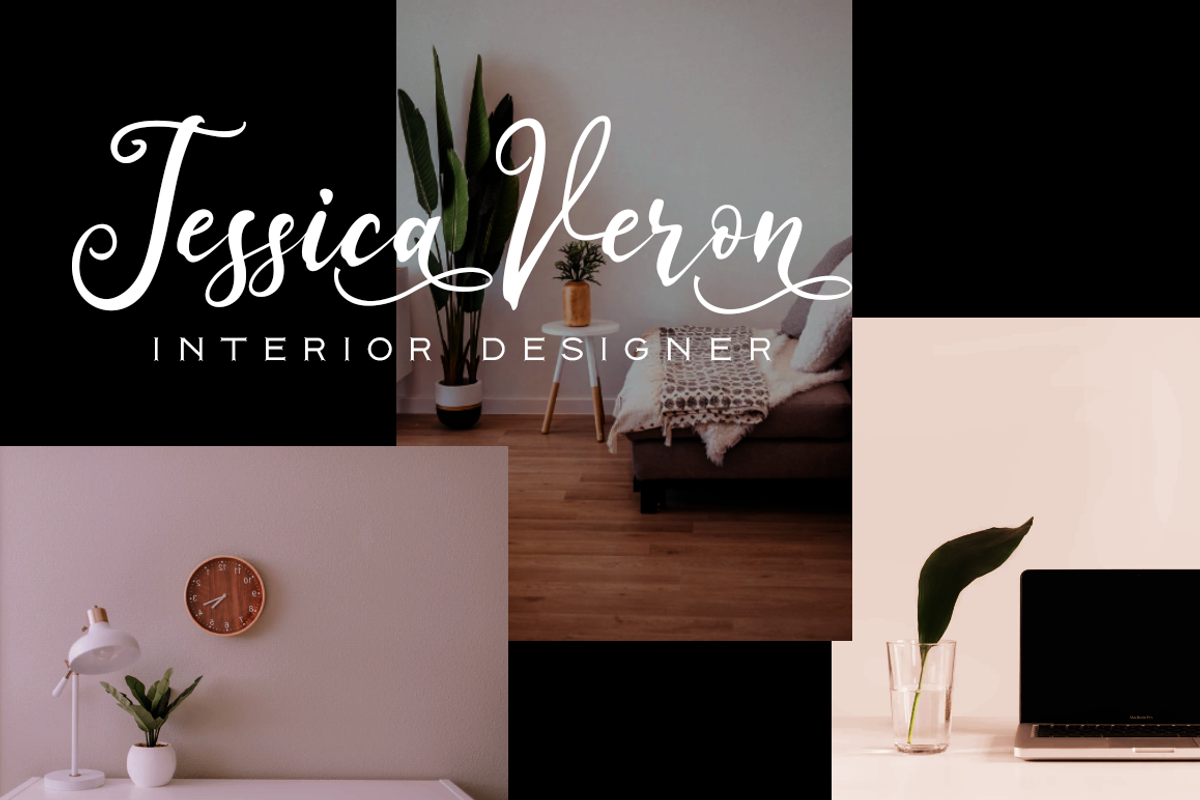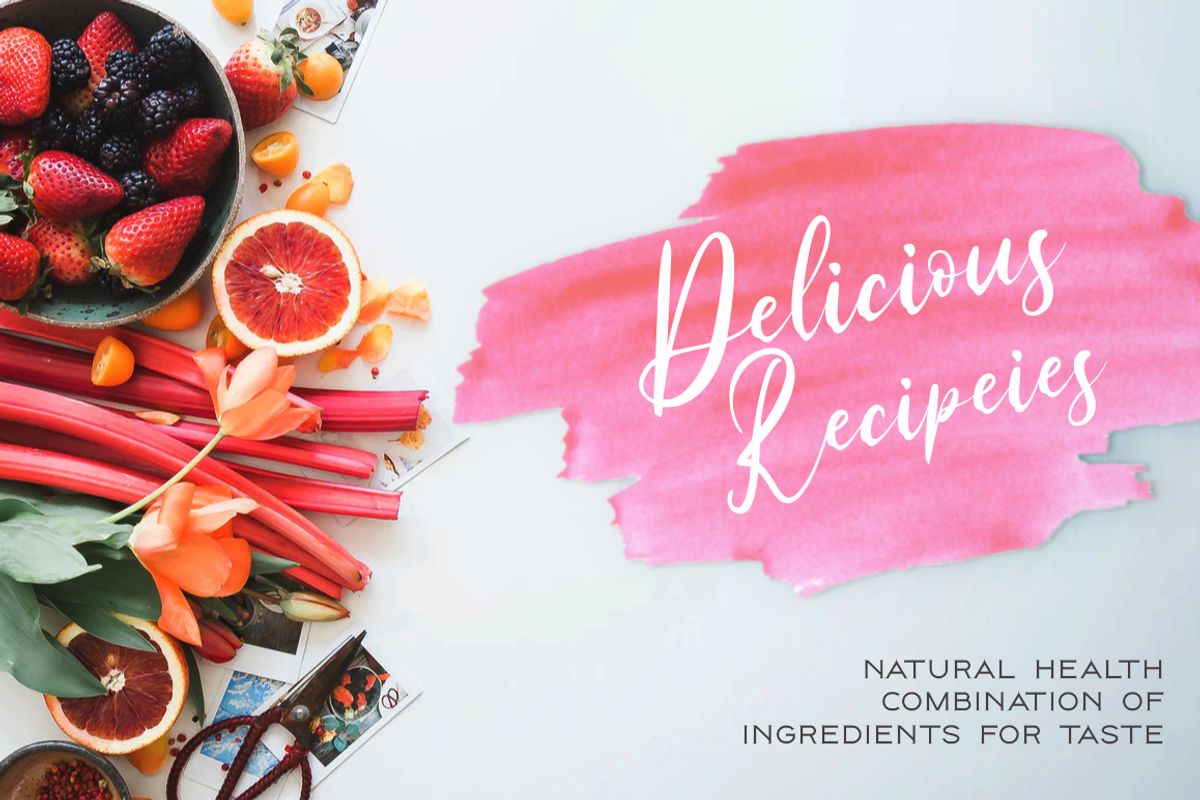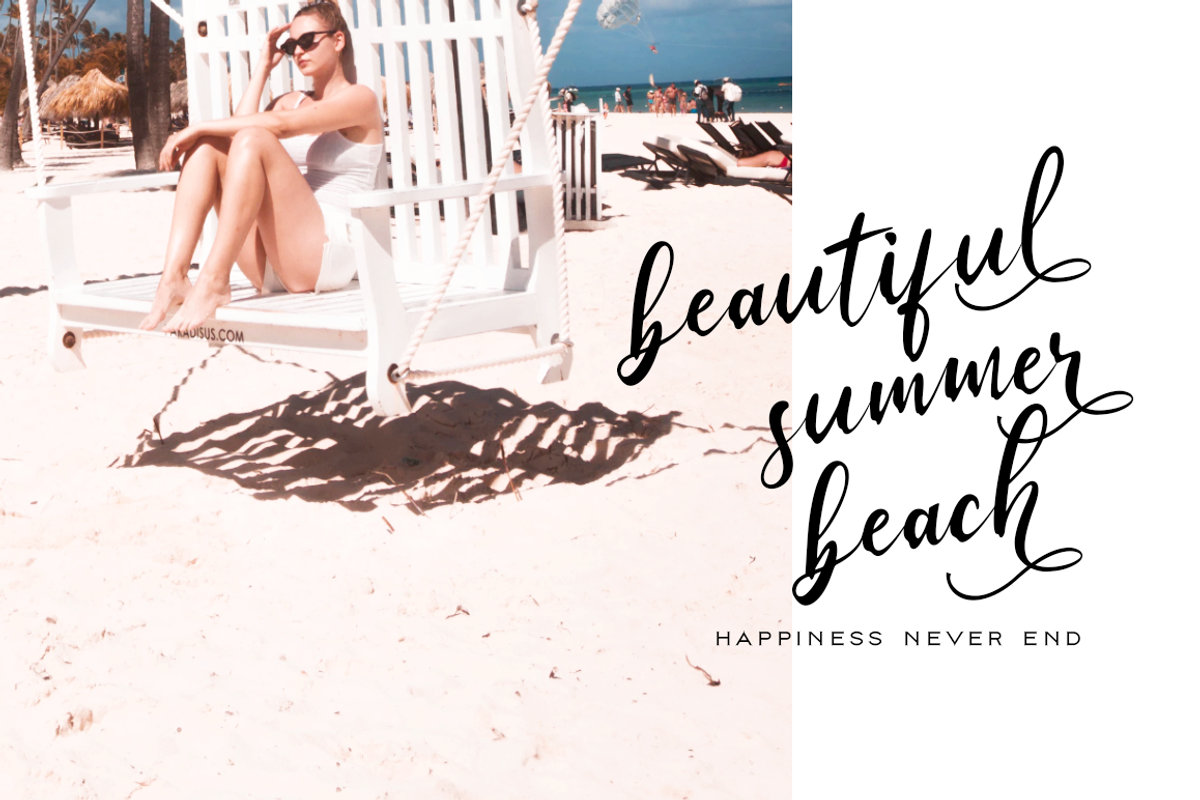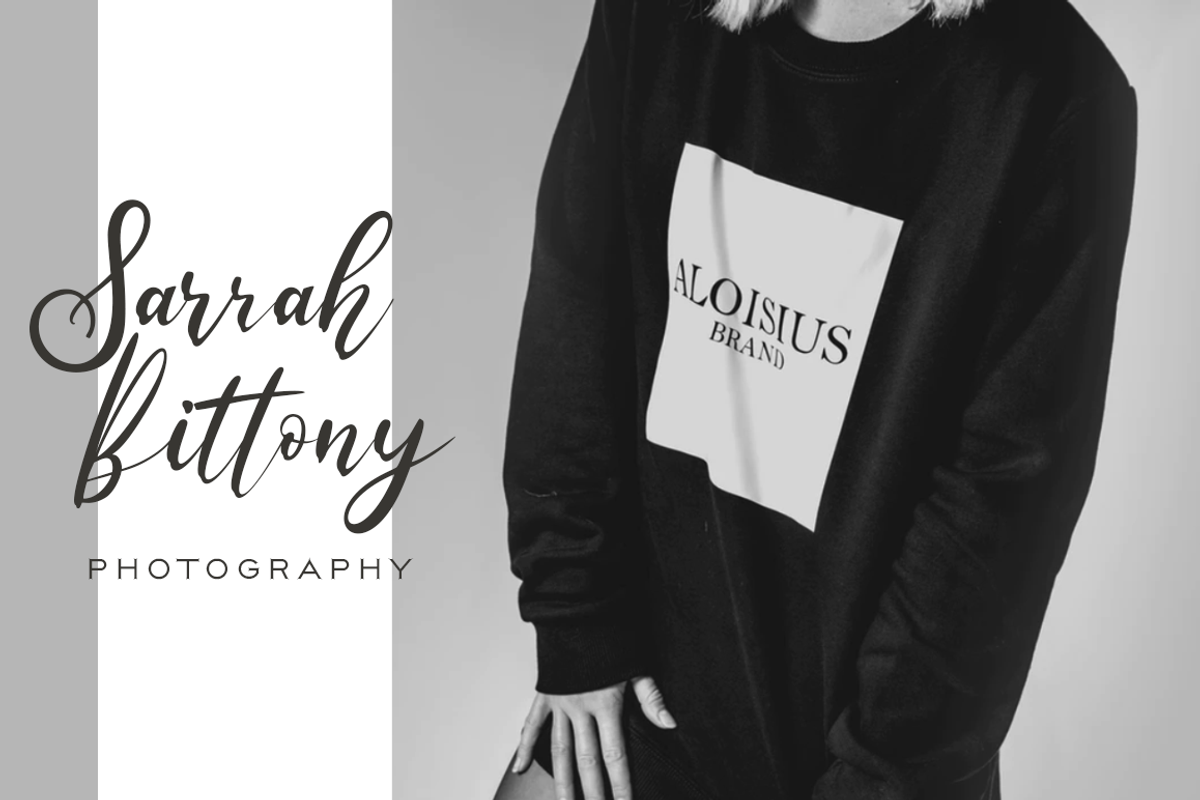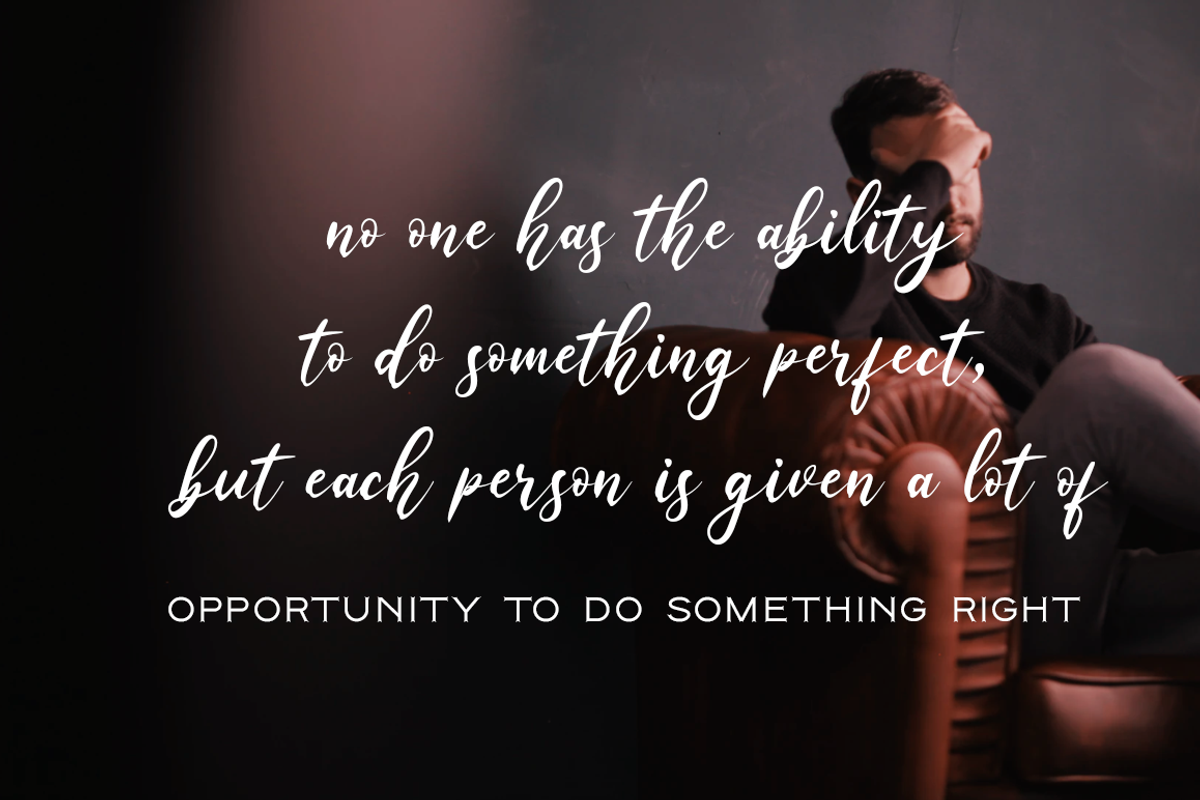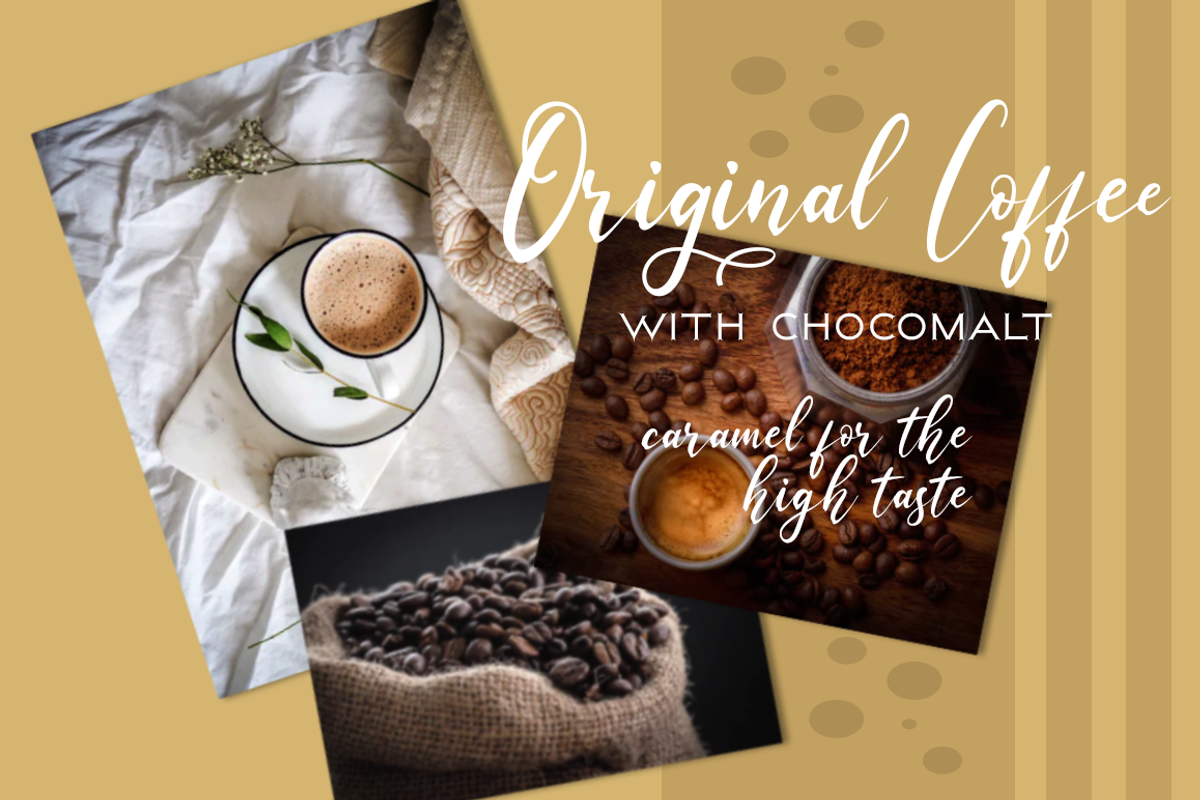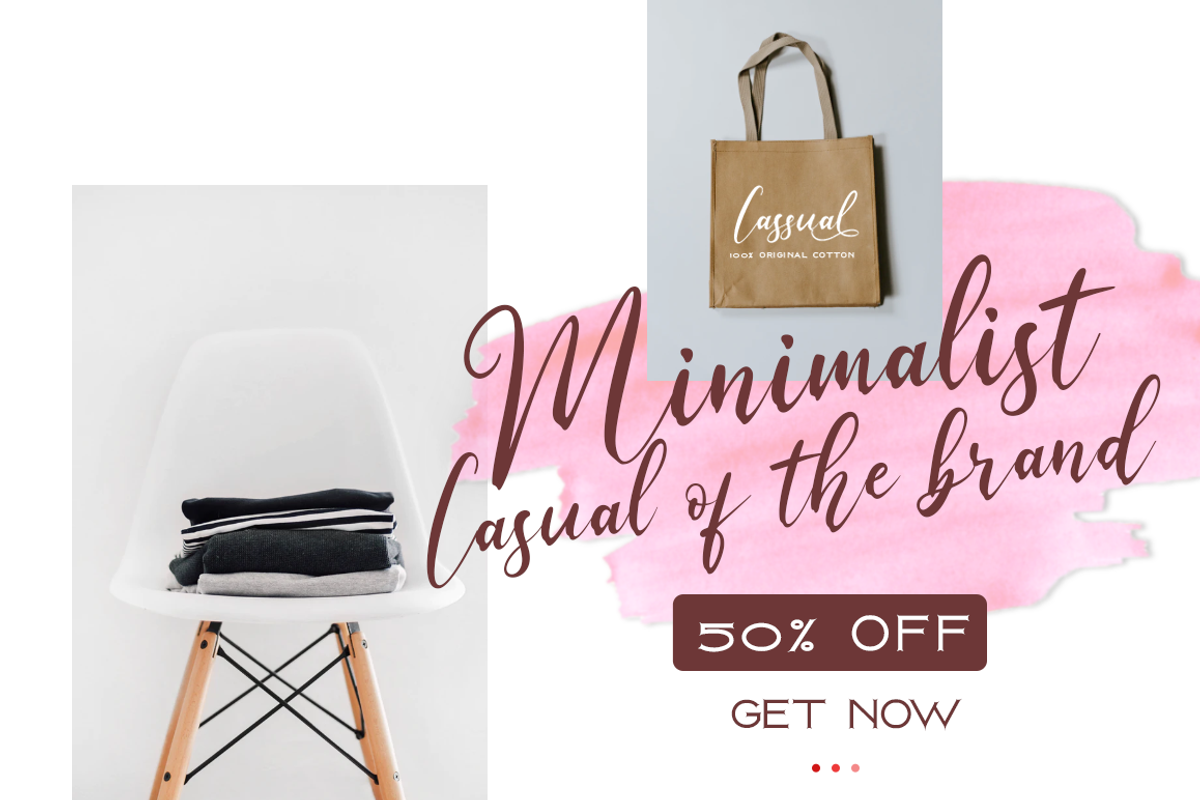
Austria Memories Font Duo
Introduce powerful font duo collaboration in Austria Memories the stylish modern and natural fonts combination with casual brush in script and elegant in Serif. These are perfect for branding, wedding invites and cards, and more option for your requirement.
Austria Memories include two font styles with full set of natural brush style draw for script and elegant with all uppercase letters for serif. Numerals, a large range of punctuation and ligatures giving realistic hand-lettered style.
Why Austria Memories Font Duo is worth a look
Austria Memories Font Duo by Haksen fits naturally into Branding, posters, packaging, typography.